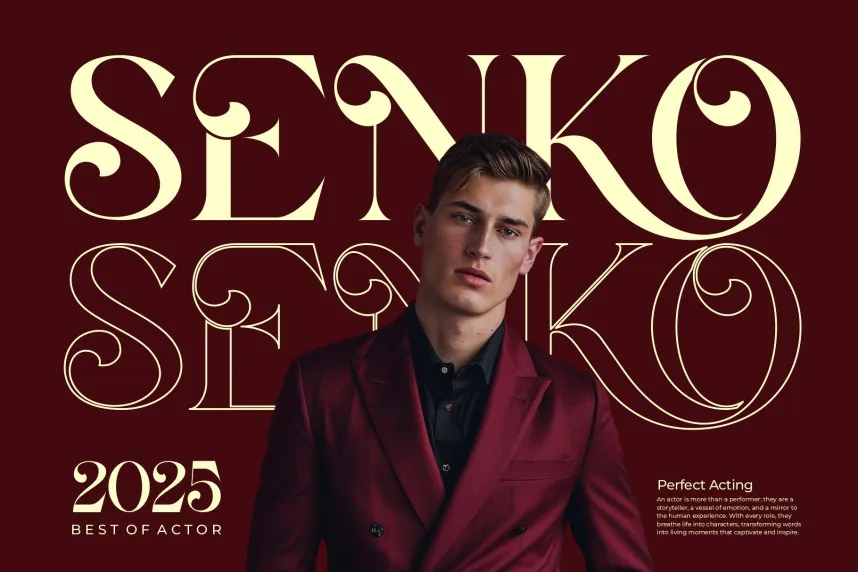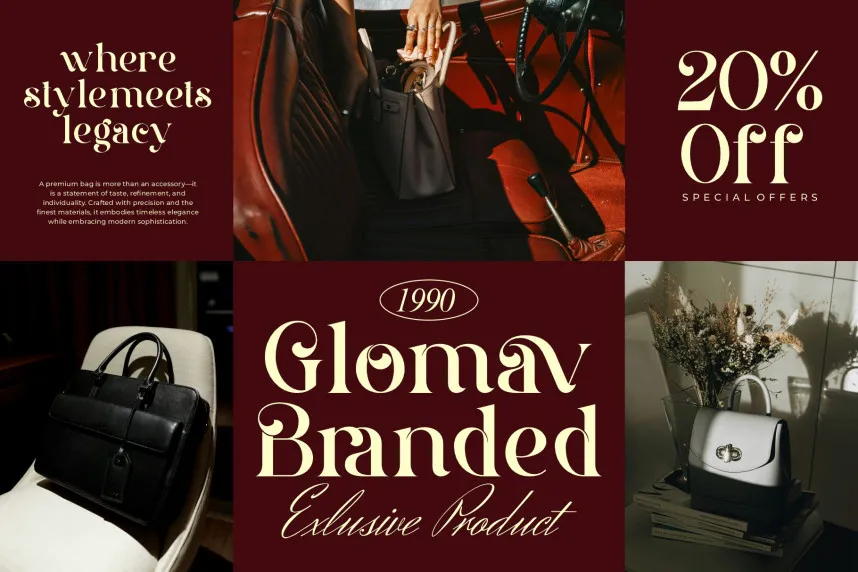
Vascor Font is a modern and classy serif typeface that blends tradition with style. It has elegant strokes and balanced spacing that give text a luxurious look.
Each letter is carefully shaped with clean edges and stylish details. The design makes the font both timeless and fashionable, perfect for premium branding.
Vascor Font is widely used for logos, book covers, fashion branding, and invitations. Its graceful structure helps any design look polished and professional.
The typeface is versatile and works well on both screens and printed materials. It can be used for large titles or fine paragraph text with equal quality.
Vascor Font Family
Designers love how it brings a sense of elegance and sophistication. It turns ordinary designs into luxury visuals with very little effort.
Name Vascor Font
Type Elegant Serif
Designer Brandsemut Studio
Usage Perfect for fashion, luxury branding, and book titles
This typeface is a refined and stylish serif font perfect for high-end design projects. It adds a touch of class, confidence, and beauty to every word.